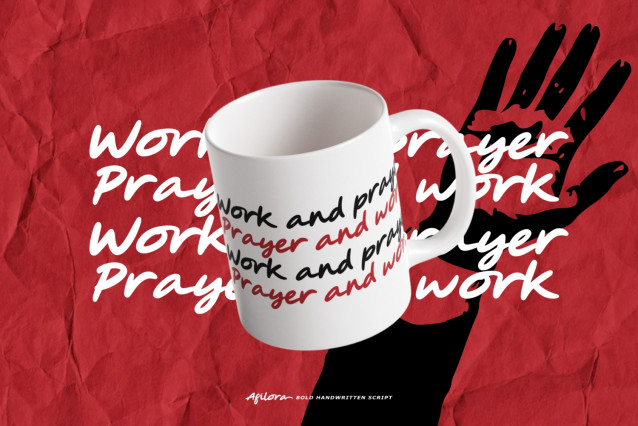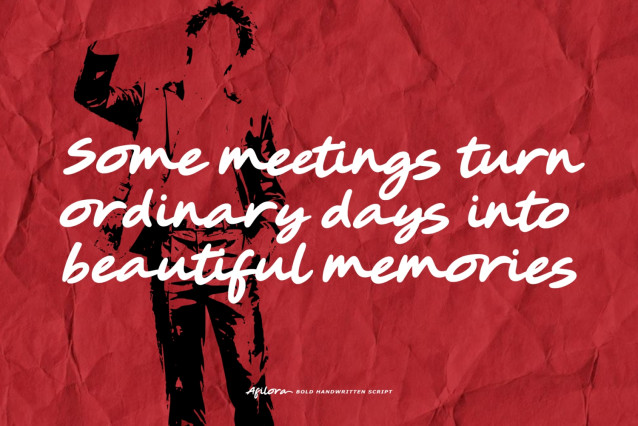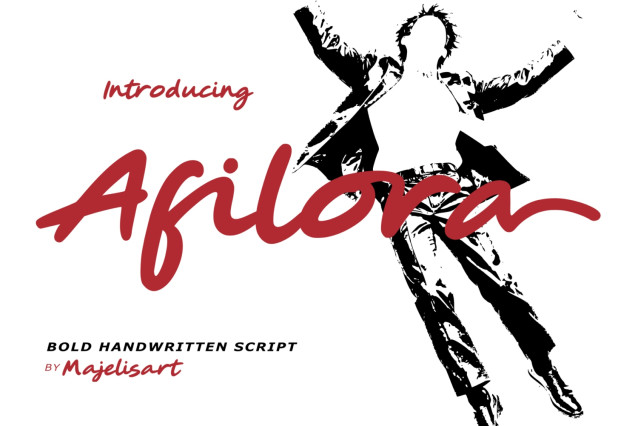
Afilora – Handwritten script Font
Afilora — Bold Handwritten Script Font
Introducing Afilora, a bold and expressive Handwritten Script Typeface designed with smooth, flowing strokes and a confident handwritten character.
Afilora combines bold brush-like strokes, natural curves, flowing connections, and dynamic swashes to create a stylish and energetic appearance. Its strong presence makes it ideal for designs that need a modern, artistic, and expressive touch.